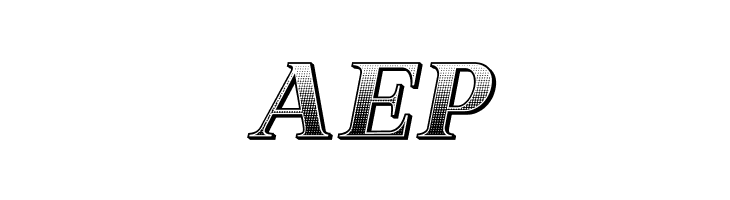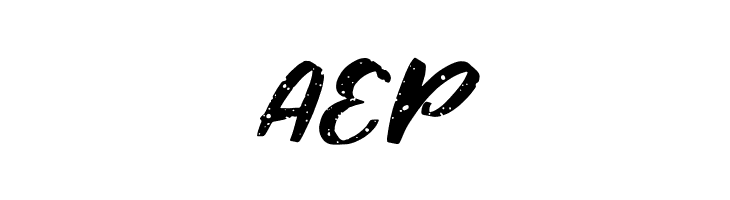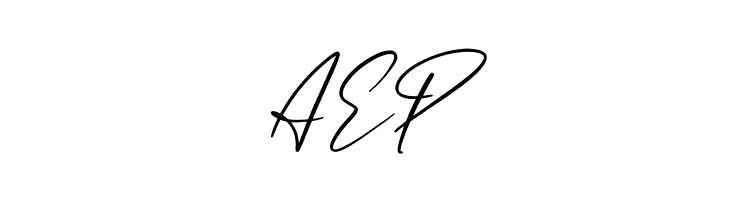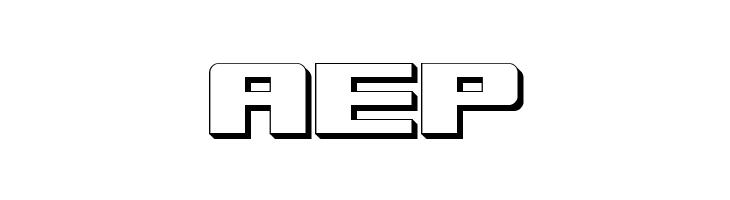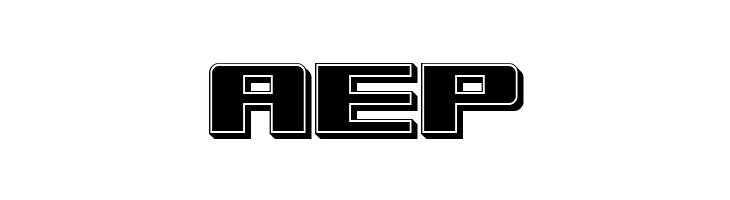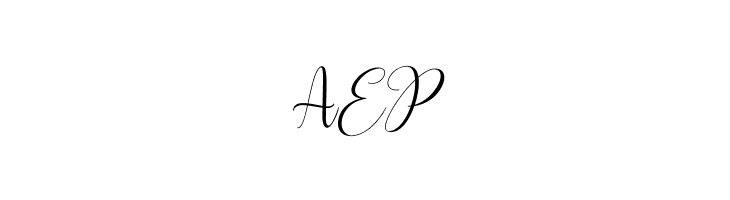
• Bulged Monogram Stylish Regular
A decorative monogram font with bold, oval-encased uppercase letters.
• Bulgeria
A bold, high-contrast serif font with expressive, rounded serifs.
• Bulgeria Italic
A bold, italic serif font with elegant curves and strong presence.
• Buljirya Personal use
A high-contrast serif font with elegant, modern styling.
• Bulkies Regular
A bold, brush-style script with a distressed texture and dynamic strokes.
• Bulkies Regular
A bold, brush-style font with a distressed texture and dynamic, energetic appearance.
• Bulksans 3D
A bold, 3D geometric font with outlined characters and a modern style.
• Bulksans 3D Filled
A bold, 3D geometric font with a modern, industrial style.
• Bulksans Regular
A bold, geometric font with a modern and industrial aesthetic.
• Bulky Pixels
• Bull Italic
A bold, italic font with decorative, textured detailing and a vintage flair.
• Bull Regular
A bold, shadowed font with a vintage, decorative style.
• Bull Stander Free Demo
A flowing, elegant script font with graceful curves and consistent stroke width.
• Bullaina
A fluid and elegant handwritten font with connected strokes.
• Bulldozer
A bold, brush-style font with dynamic and energetic strokes.
• Bulldozer_PersonalUseOnly
A bold, brush-stroke font with a raw, expressive style.
• BullerBuPapercut
A playful, hand-crafted font with irregular, cut-out shapes.
• BullerBuPapercut-BoldOblique
A bold, oblique font with a papercut effect, offering a playful and handcrafted style.
• Bullet Journal
A modern, geometric sans-serif font with a clean and balanced design.
• Bullet Journal
A modern, geometric sans-serif font with clean lines and balanced spacing.
• Bullet Journal Fall